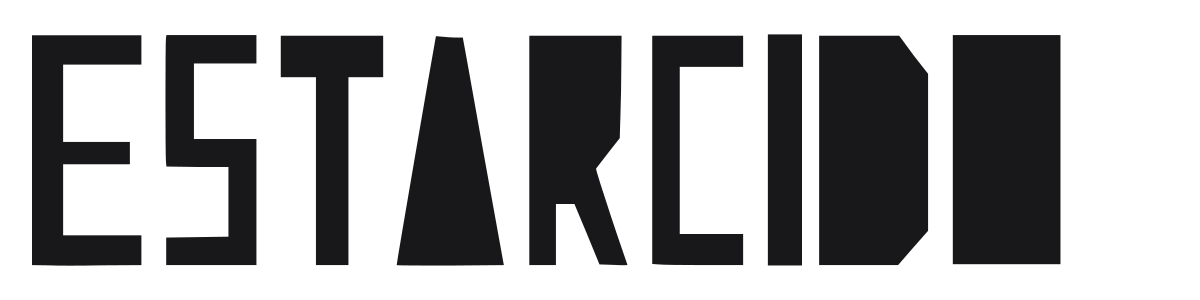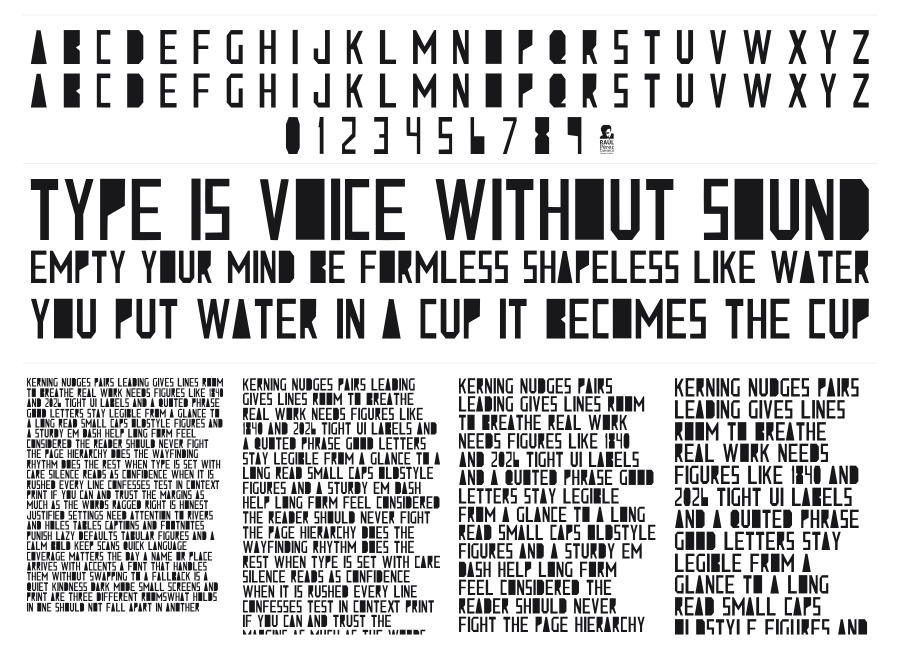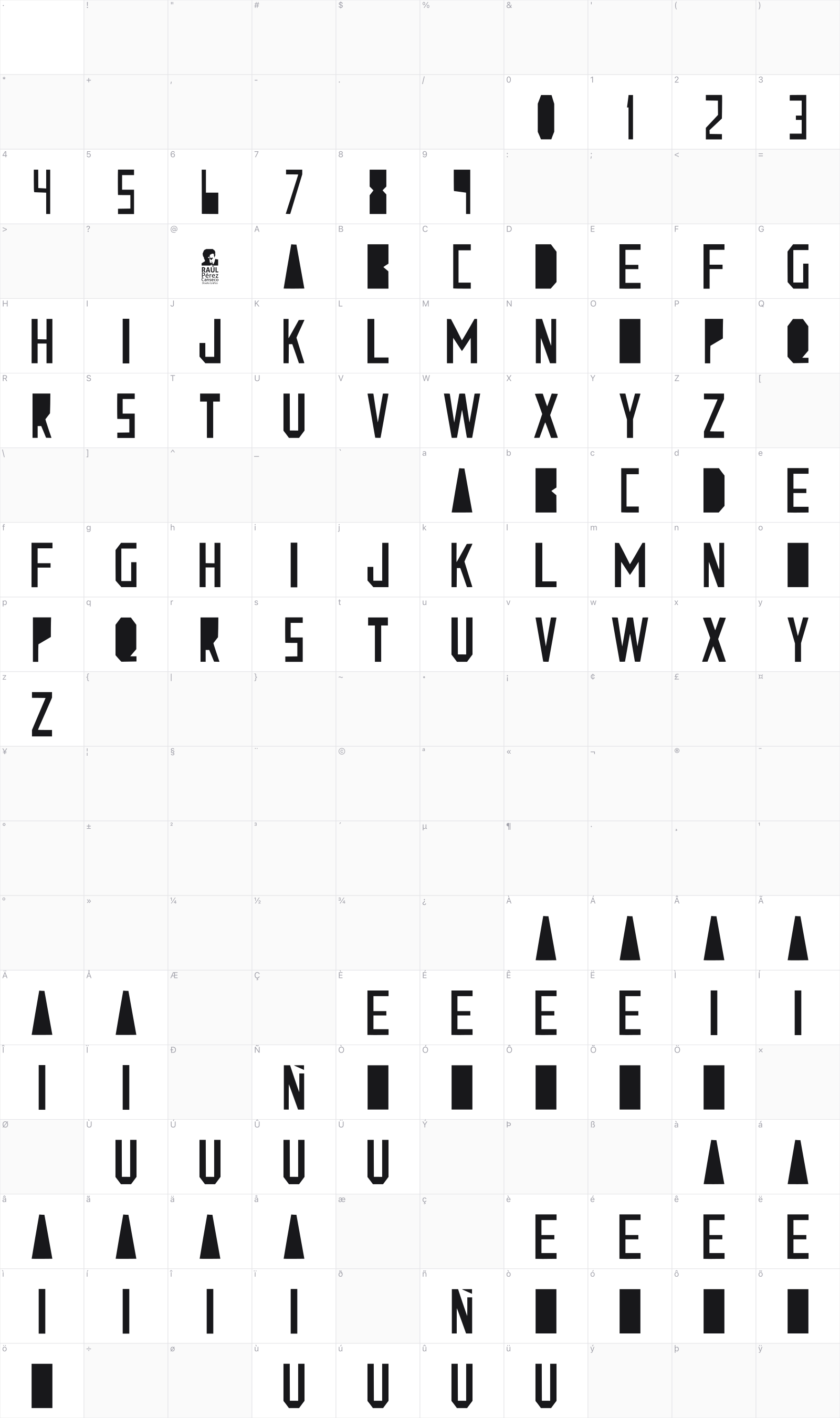
Estarcido
Estarcido is a condensed geometric display face built from bold modular blocks with deliberate rectangular cutouts that fragment strokes into striking graphic shapes. The construction echoes Russian constructivism and Bauhaus grid logic, giving each character a strong architectural quality. It commands attention at large sizes and suits poster work, logos, and editorial headlines where visual impact matters most.